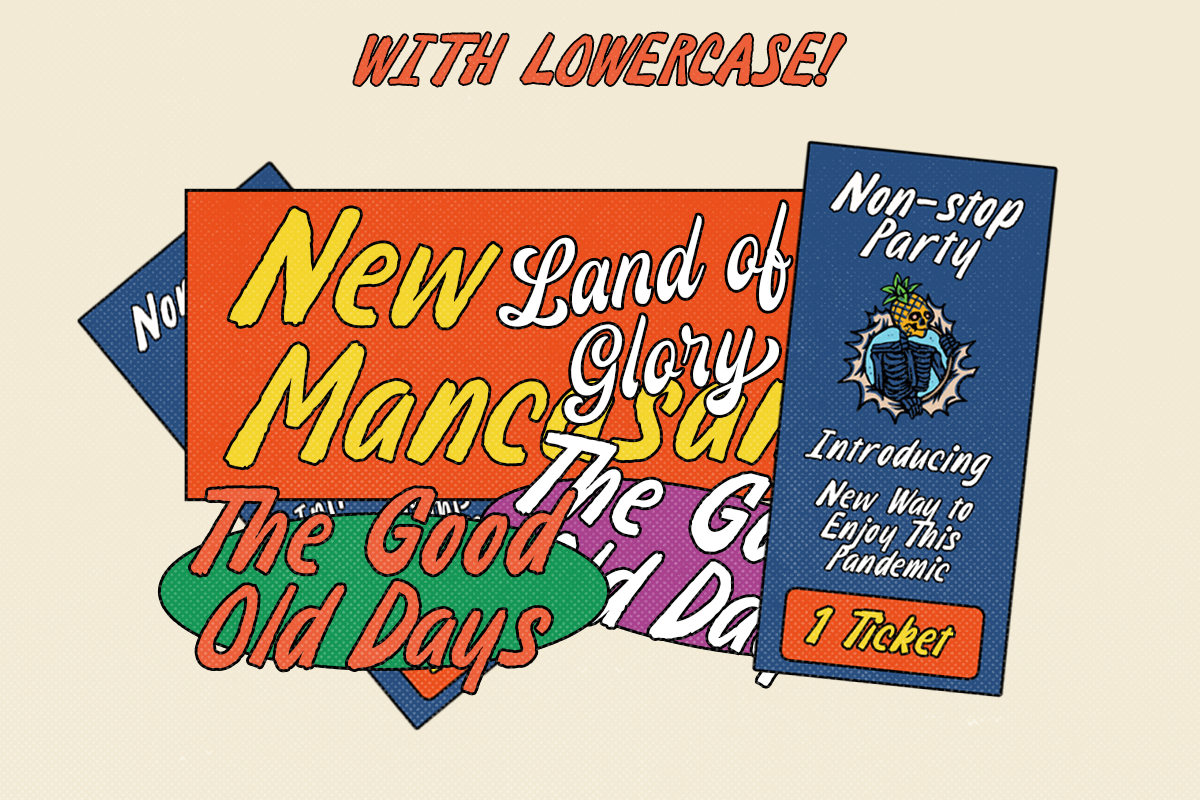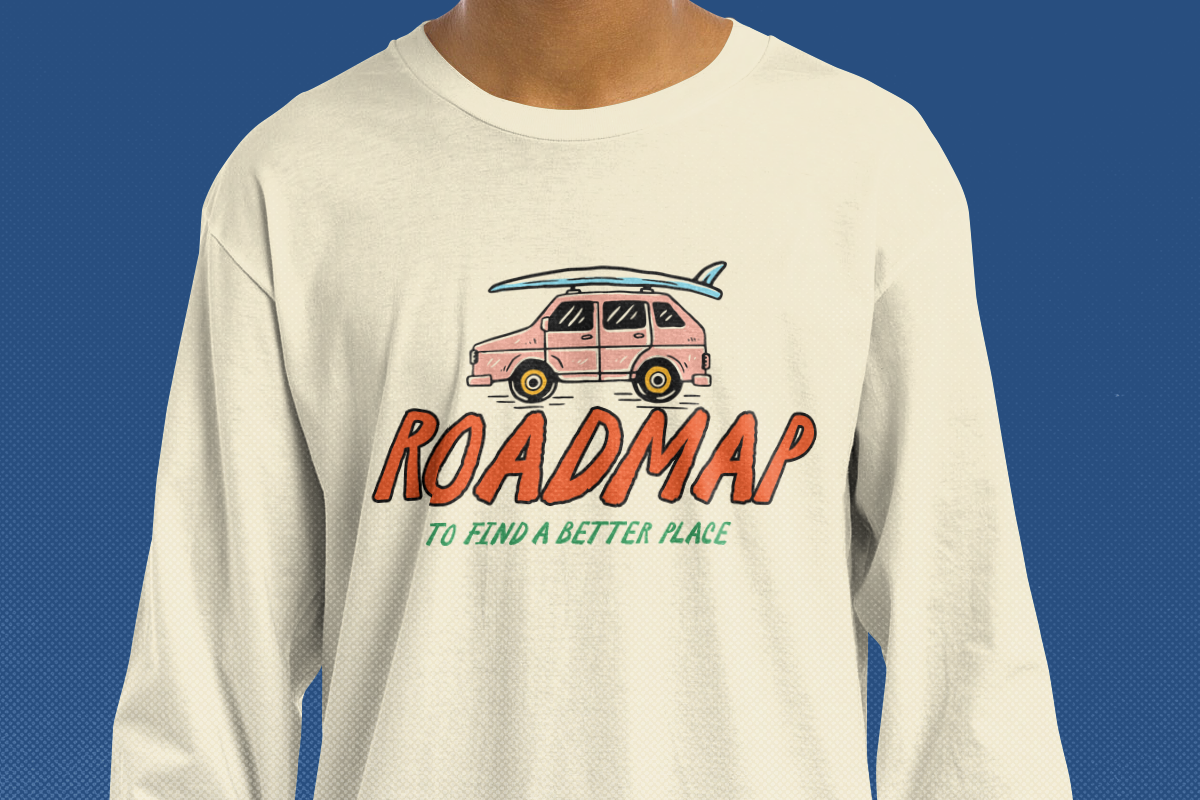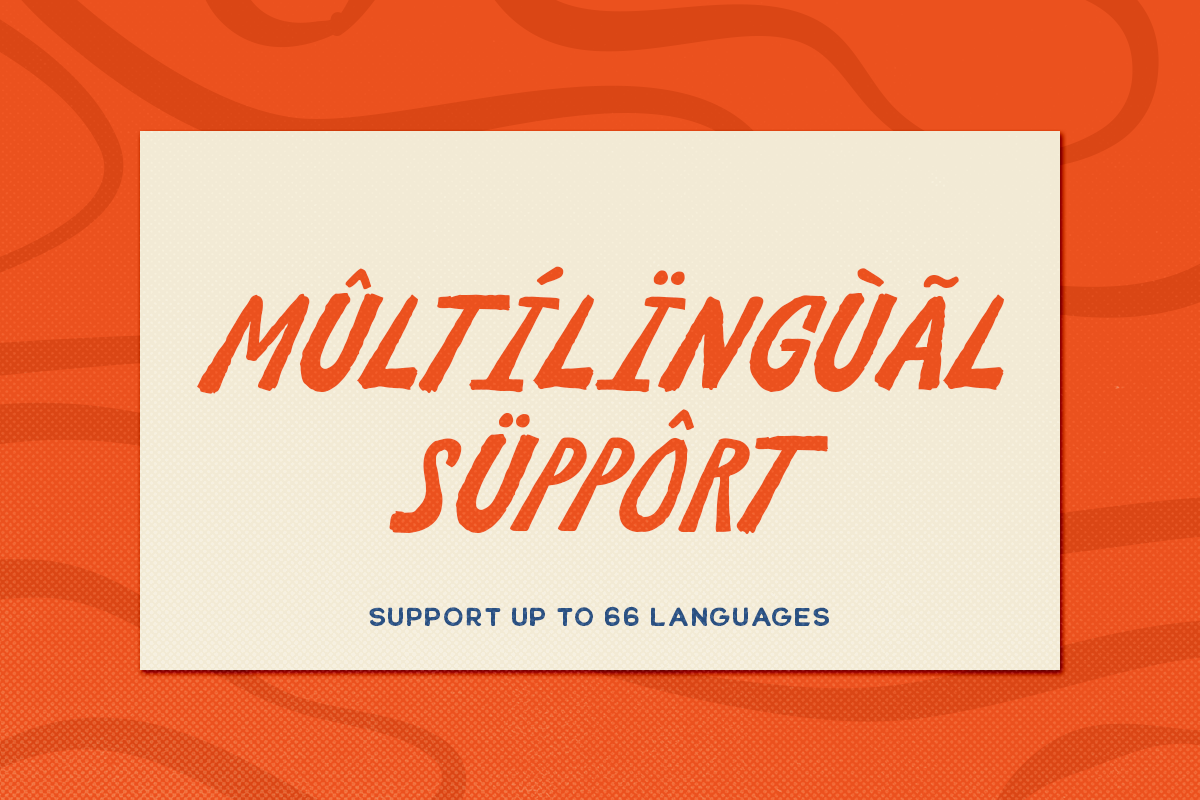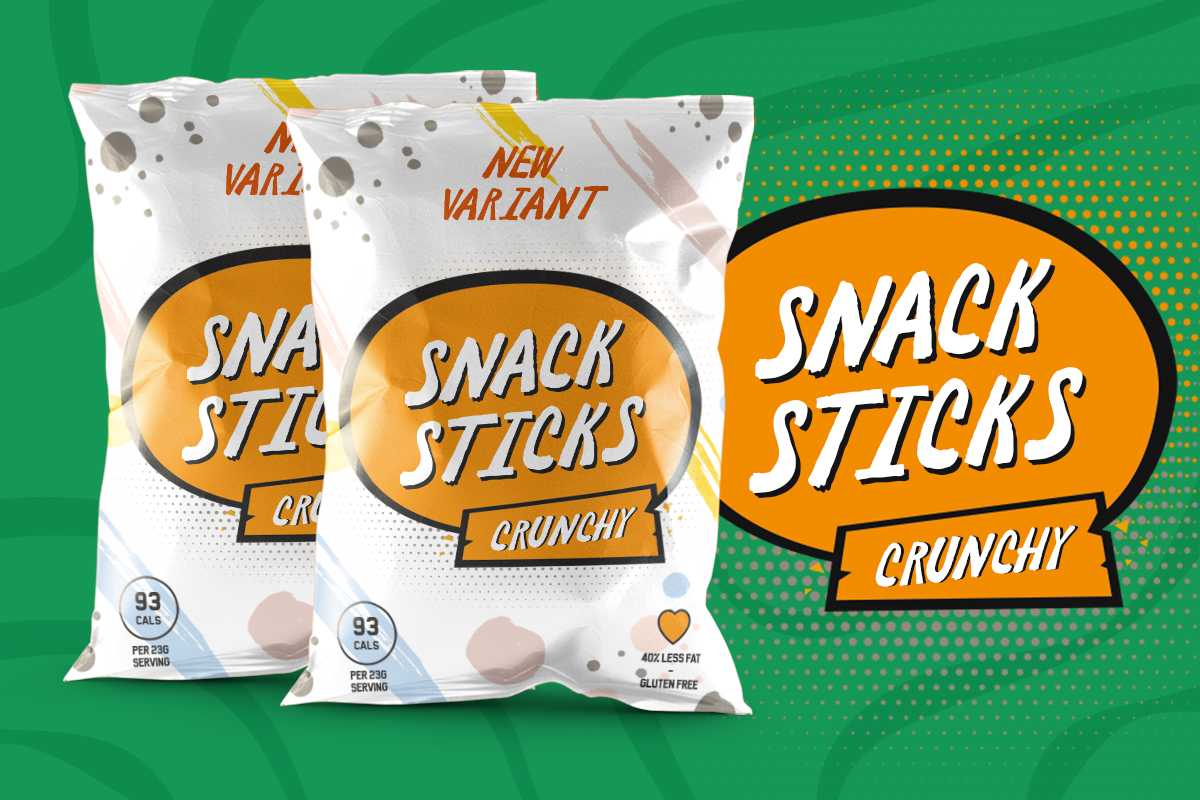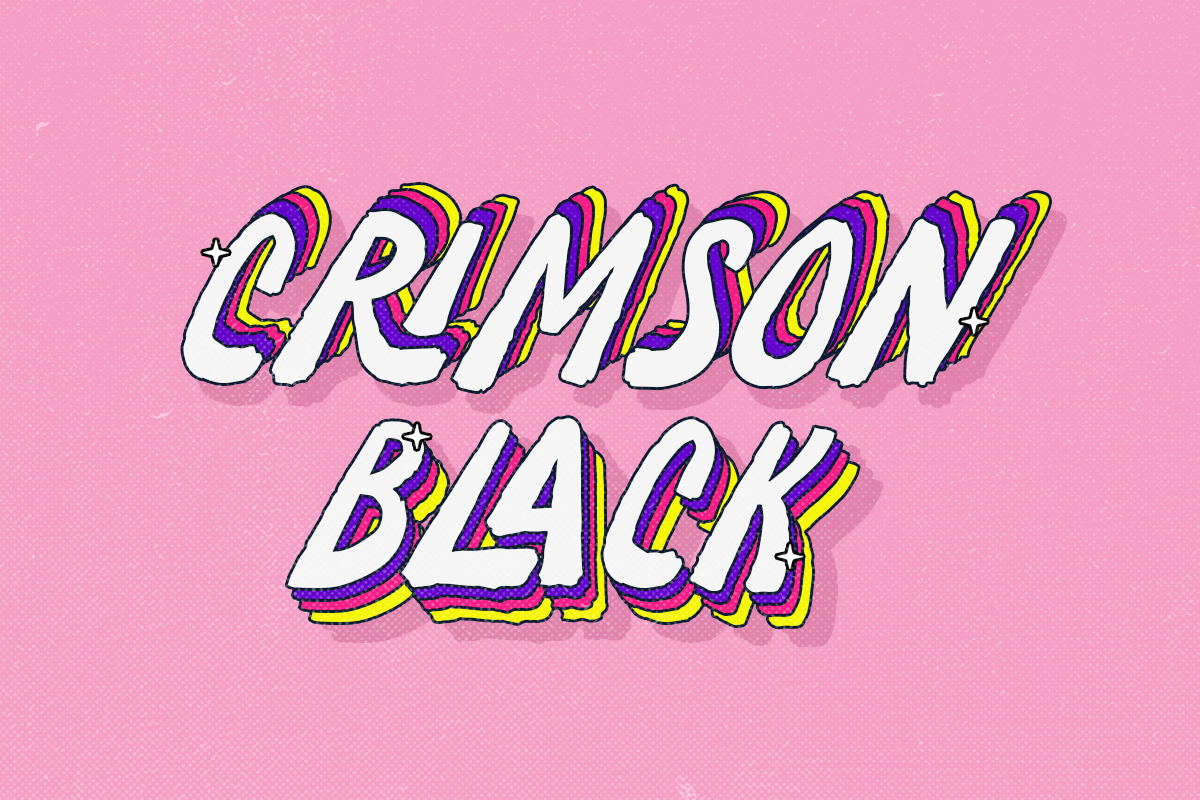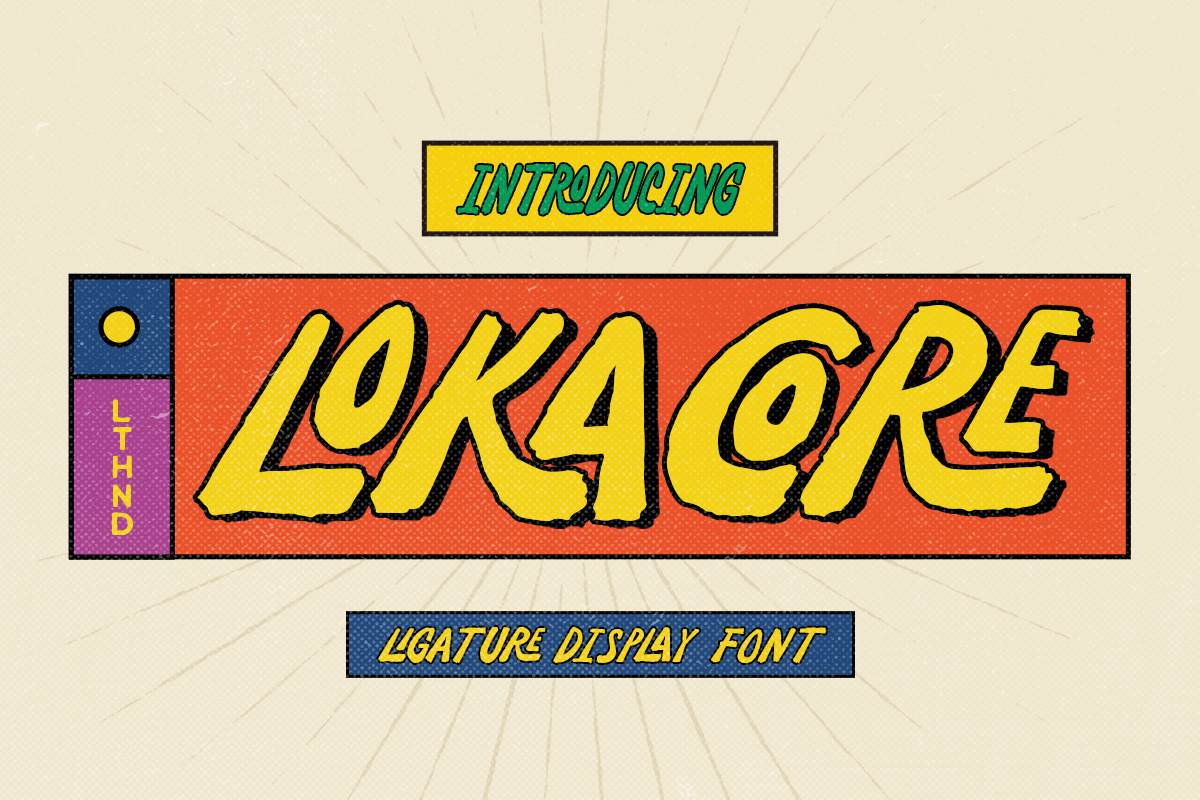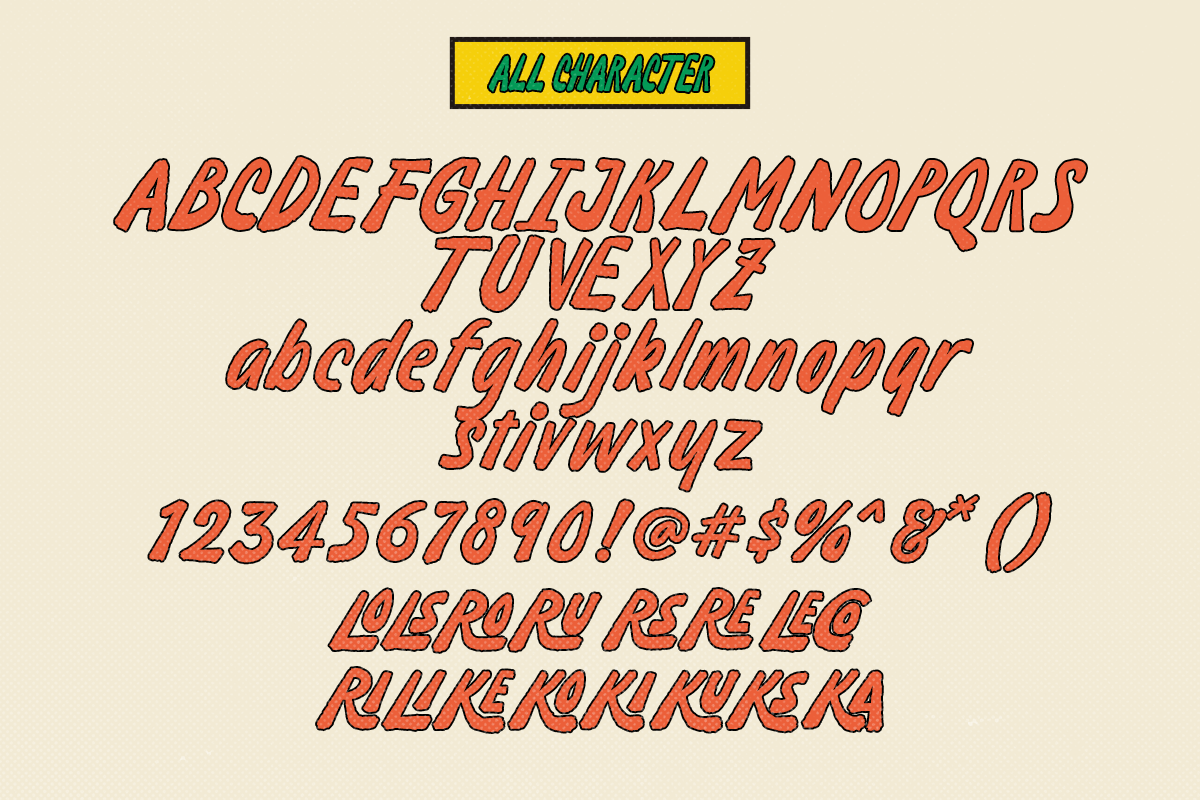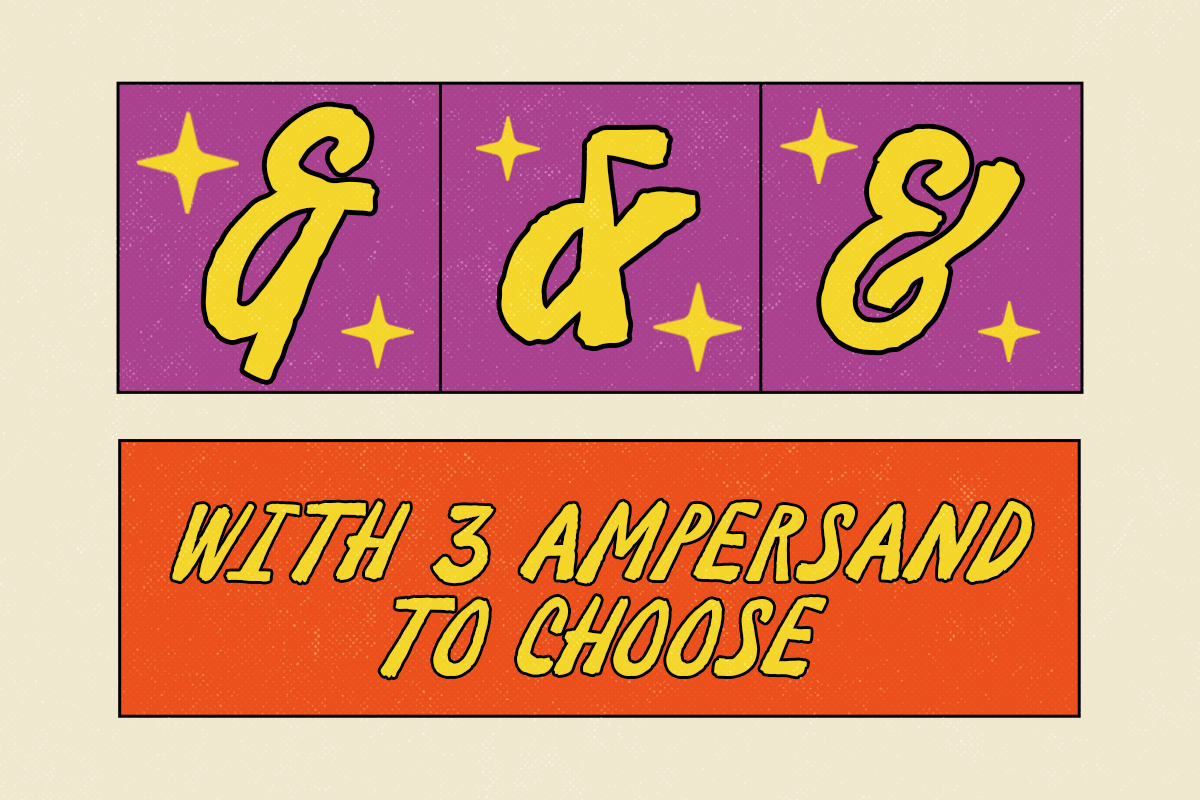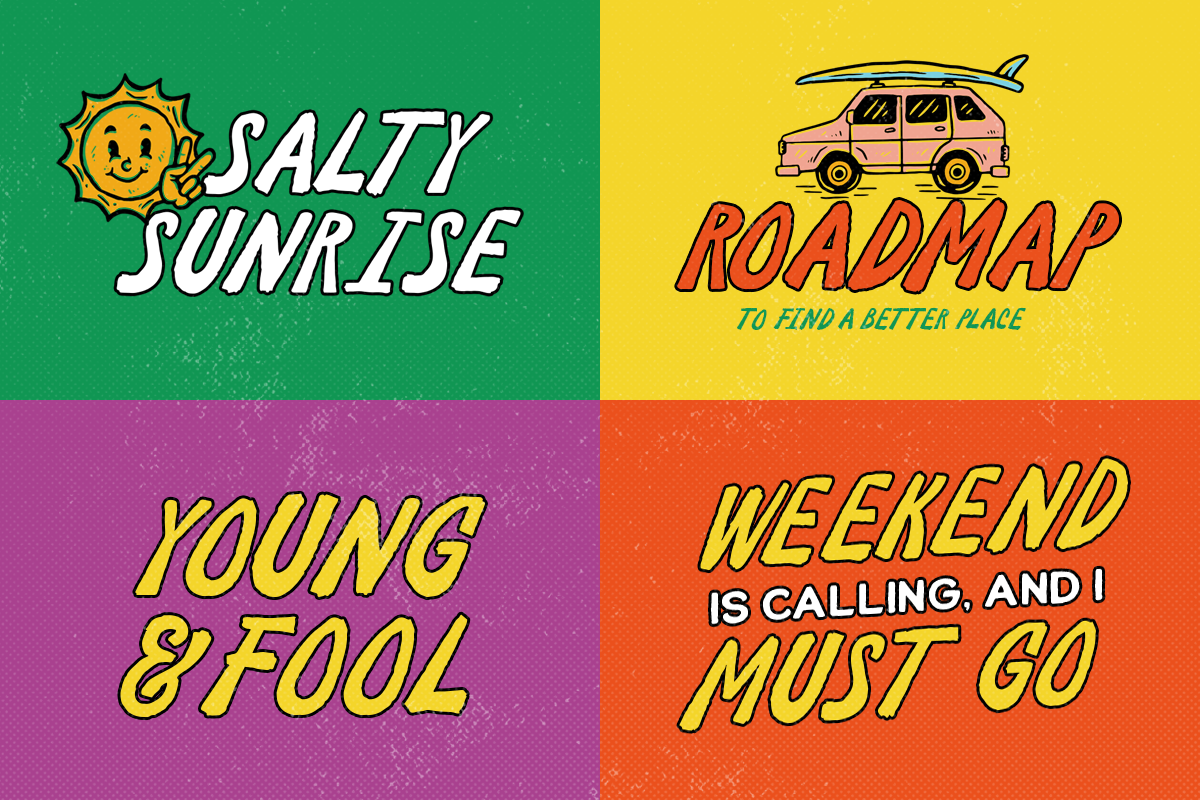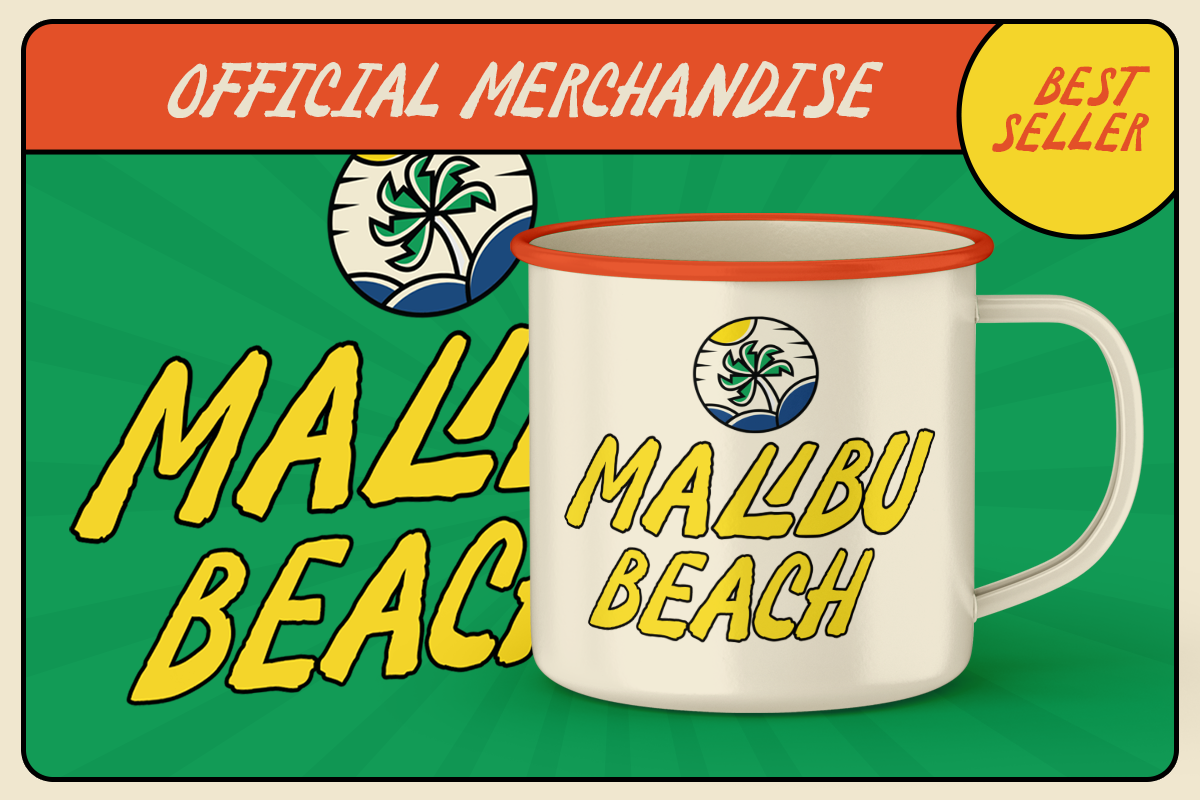
Lokacore - A Ligature Fun Font
Lokacore is a ligature display font with fun and playful looks. This type of font perfectly made to be applied especially in storybook children or child theme which is need a standout font, and the other various formal forms such as invitations, labels, logos, magazines, books, greeting / wedding cards, packaging, fashion, make up, stationery, novels, labels or any type of advertising purpose.
- Doodle dingbats